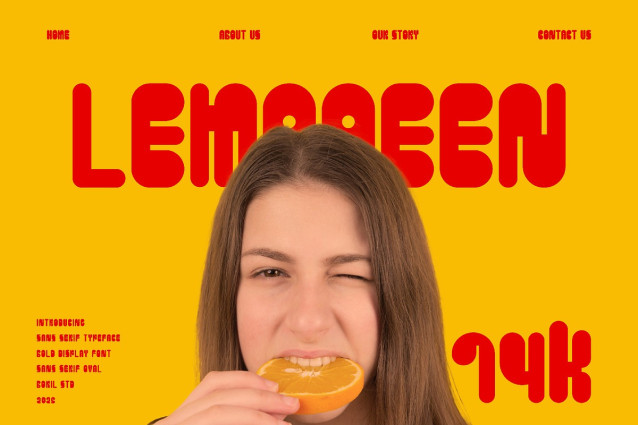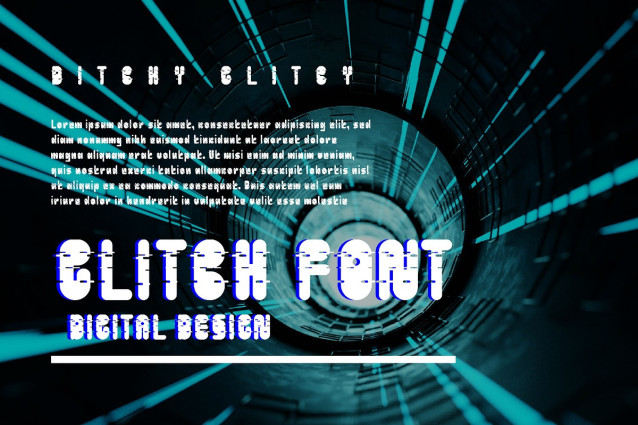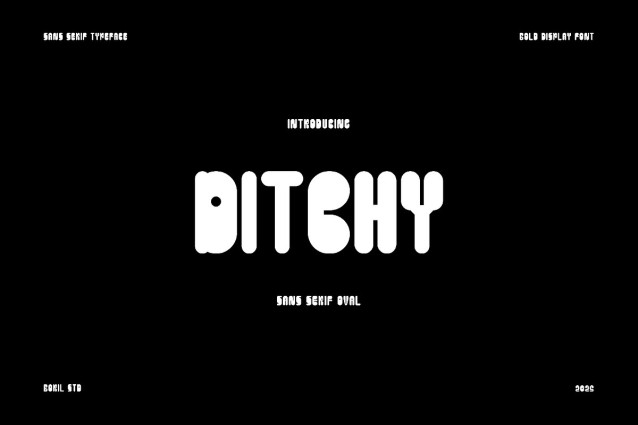
Ditchy Display Font
Ditchy Display Font with a cleaner and more modern feel, each letter looks like a controlled, bubble geometric shape, bold and rounded on each side, but with a more symmetrical and neat structure, and has a unique shape that combines cuteness and futurism.
DITCHY GLITCY font features a futuristic and experimental display typeface with a very strong glitch touch. The bold letters with rounded shapes appear in a horizontal glitch cut effect, creating a visually striking impression of broken technology, cyberpunk, or digital error.